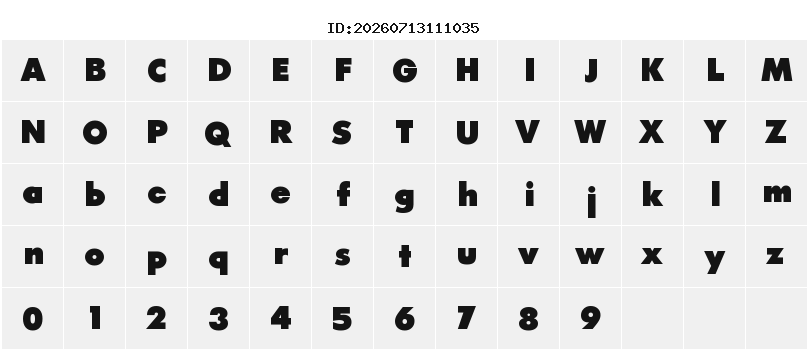
Raiderfont Preview
About Raiderfont.ttf
Raiderfont.ttf is a modern, elegant sans-serif font designed for ultimate readability and visual harmony. Perfect for branding, headlines, web design, and print materials.